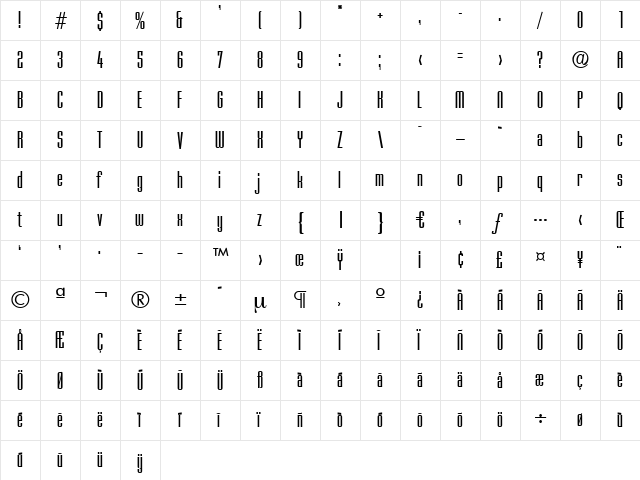
OrlandoRegular Regular
Design Context for OrlandoRegular Typeface
OrlandoRegular offers clean, dependable letterforms without strong stylistic allegiance, making it a practical choice for designers who need flexibility.